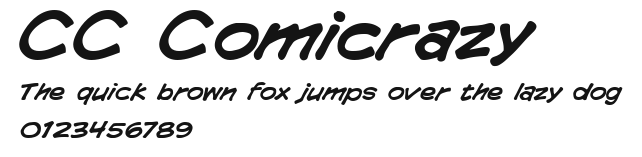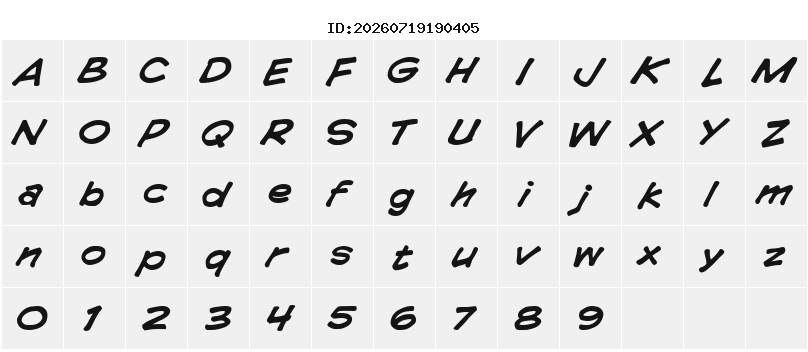
• Font Name: CC Comicrazy
About CC Comicrazy.ttf
CC Comicrazy.ttf is a modern, elegant sans-serif font designed for ultimate readability and visual harmony. Perfect for branding, headlines, web design, and print materials.